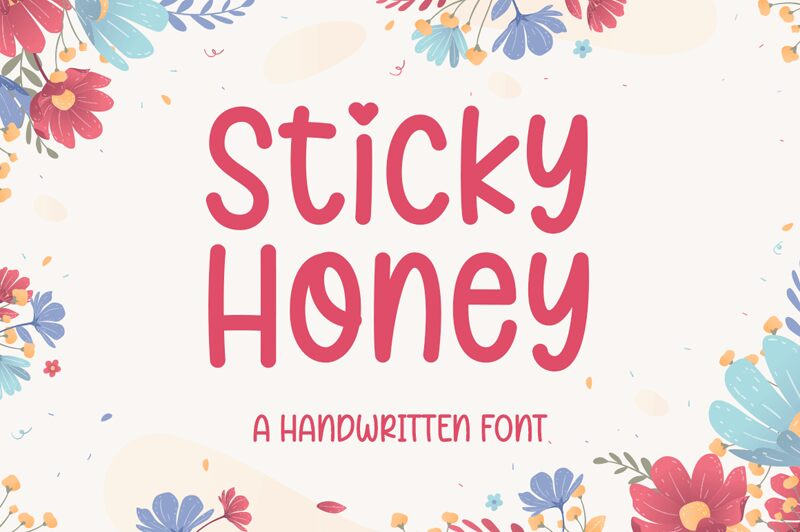
Sticky Honey
Sticky Honey is a charming semi-light font designed by Suby Studio. Its cute handwritten style adds a playful touch to any project. The warm, inviting curves of Sticky Honey make it perfect for branding and packaging designs, as well as social media graphics and greeting cards. This unique font is also a great choice for children's books or any project that needs a touch of whimsy. Whether you're creating a logo or designing a poster, Sticky Honey will add an extra layer of personality to your work. Try it out today and watch your designs come to life!